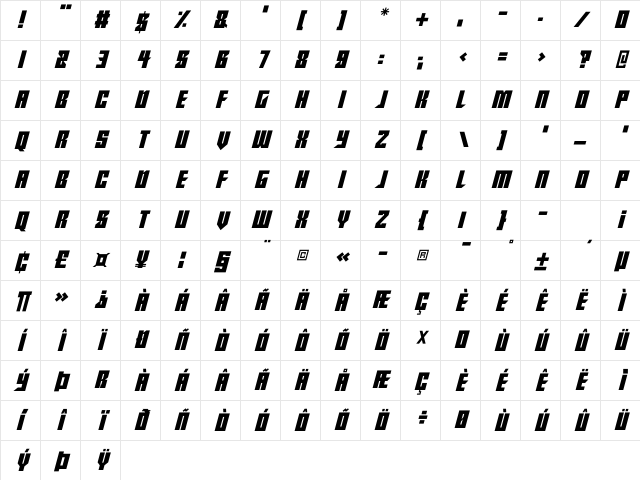
From Beyond is a composed and adaptable typeface that performs quietly and consistently across a wide range of design contexts. The slanted form adds forward momentum and visual energy.
Pro Tip: Use From Beyond for emphasis, pull quotes, and subheadings where its slanted energy can add rhythm to the layout.